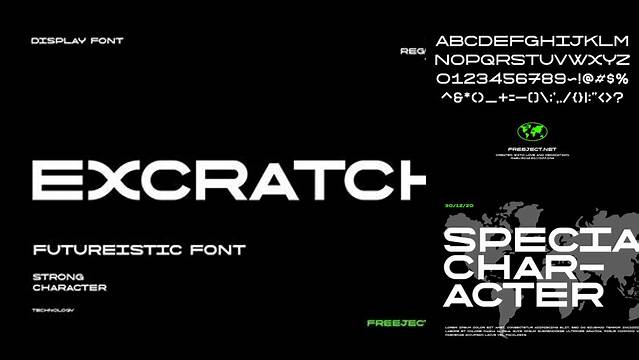
Alright, design enthusiasts! Let's dive headfirst into the world of typography with a focus on the awesome Excratch futuristic font. Seriously, guys, if you're looking to inject some serious sci-fi vibes or a sleek, modern feel into your projects, you've stumbled upon the right place. This article is all about the Excratch futuristic font free download, its features, how to use it, and where you can snag it without spending a dime. We'll explore everything from its unique characteristics to the best applications for this eye-catching typeface. So, buckle up, and let’s get started!
What Makes Excratch Font So Futuristic?
Excratch, at its core, is a font that embraces the future. It's not just a font; it's a statement. Designed with clean lines, sharp angles, and a distinct lack of traditional serifs, Excratch immediately evokes a sense of innovation and technological advancement. Think about it – what comes to mind when you picture the future? Sleek interfaces, advanced technology, and maybe even a spaceship or two, right? Well, Excratch encapsulates all of these elements in its design. The font's letterforms often feature geometric shapes, giving it a robotic or digital feel. This makes it perfect for projects that aim to represent anything related to technology, gaming, or the digital world. Furthermore, the consistent weight and spacing of the letters contribute to its readability and visual appeal, ensuring that the futuristic message is both clear and engaging. So, whether you’re crafting a website header, designing a game interface, or creating promotional materials for a tech startup, Excratch is definitely worth considering. The boldness and the clean cut of the font are one of the reasons why it fits into the criteria that are required in various projects. It is designed in a way that allows you to clearly display text. The Excratch futuristic font free download offers an unparalleled opportunity to get your hands on a high-quality font that is both visually striking and incredibly versatile. This allows you to explore the endless possibilities of the Excratch font and create designs that truly stand out from the crowd. Its striking appearance immediately grabs the attention of anyone who sees it, making it a perfect choice for headings, titles, and other elements where you want to make a bold statement. From a design perspective, the unique character of Excratch also allows for creative experimentation, offering endless possibilities for visual expression.
Key Features of the Excratch Font
Let’s break down what exactly makes Excratch so special. First and foremost, it’s the design. As mentioned before, the font’s clean lines and geometric shapes are the cornerstone of its futuristic aesthetic. Each letter is carefully crafted to convey a sense of precision and technological sophistication. The absence of serifs contributes to its modern and uncluttered look. The font also tends to have a high x-height, which means the lowercase letters are relatively tall. This enhances readability, especially in digital environments. This characteristic is crucial for ensuring that your text remains legible across various screen sizes and resolutions. Beyond the basic letterforms, Excratch often includes a range of special characters and glyphs. These can add extra flair and personality to your designs, allowing you to create truly unique visual compositions. Many versions of Excratch come with multiple weights and styles, from regular to bold, and sometimes even italic. This variety gives you greater flexibility when designing, letting you emphasize different parts of your text or create a layered visual hierarchy. The font's versatility makes it suitable for a wide range of applications, from website headers and app interfaces to print materials and branding projects. The Excratch futuristic font free download that you are looking for provides you with the complete package, with all of these amazing features readily available for you. The versatility of the Excratch font makes it an excellent choice for a variety of design projects, allowing you to create everything from striking headlines to detailed body text. Its unique aesthetic helps your design stand out, making it an excellent tool for designers and creatives. By utilizing the features of the Excratch font, you can make sure that your design not only looks visually appealing but also resonates with your target audience. This way, you can achieve your design goals.
Benefits of Using Excratch Font in Your Designs
Using Excratch in your designs offers a bunch of benefits. First off, there's the instant visual impact. The futuristic aesthetic of the font immediately grabs attention and communicates a sense of modernity and technological advancement. This is great for projects where you want to portray innovation or forward-thinking ideas. Secondly, Excratch is highly versatile. It works well in a variety of applications, from website headers and logos to posters and presentations. Its clean lines and sharp angles make it adaptable to different design styles. Thirdly, the font can enhance your brand identity. By using Excratch, you can create a distinct visual identity that sets you apart from the competition. This is particularly valuable in industries like tech, gaming, and design. Additionally, Excratch is generally easy to read. Despite its unique design, the font is often created with readability in mind, ensuring that your message is clear and accessible to your audience. This is essential for ensuring your text remains legible across various screen sizes and resolutions. Moreover, the Excratch futuristic font free download is easily accessible for designers of all backgrounds. The availability of this font makes it easy for anyone to enhance their design projects with its unique and eye-catching aesthetic. The clean lines and sharp angles make it adaptable to different design styles, allowing you to create a distinct visual identity that sets you apart from the competition. You can enhance your brand identity by using Excratch. This is particularly valuable in industries like tech, gaming, and design. The benefits of using Excratch don't end there; it can also boost your overall design appeal and make a significant visual impact.
Designing with Excratch: Best Practices and Tips
Designing with Excratch can be a blast, but it's also important to keep some best practices in mind to ensure your designs are effective and visually appealing. First, consider the context. Excratch is ideal for projects that want to convey a futuristic, tech-savvy, or modern feel. However, it might not be the right choice for projects that require a more traditional or playful aesthetic. Second, pay attention to readability. While Excratch is designed for clarity, it's crucial to maintain enough contrast between the text and the background. Avoid using it over complex backgrounds or with colors that blend into the letters. Experiment with different font weights and sizes to make sure your text is easily readable, especially on smaller screens. Third, choose the right font size. Consider the purpose of the text. Headlines can usually be larger and more visually striking, while body text needs to be sized for legibility. Fourth, use the font in moderation. While it’s tempting to use Excratch everywhere, remember that too much of a good thing can be overwhelming. It works best when used strategically, for headlines, logos, or accent text. Fifth, consider pairing Excratch with a complementary font. A sans-serif font or a simple, clean serif font can provide a good contrast and enhance readability for body text. The Excratch futuristic font free download opens up a world of possibilities. By applying these best practices, you can harness the unique potential of the Excratch font to craft visually captivating and highly effective designs. This approach will not only make your design more compelling but also improve its clarity and appeal.
Combining Excratch with Other Fonts for Enhanced Design
One of the cool things about Excratch is how well it can play with other fonts. To elevate your designs, consider pairing Excratch with complementary typefaces. This combination can provide visual interest and improve overall readability. The best pairings often involve contrasting styles. A good approach is to combine Excratch with a clean, neutral sans-serif font for body text. This ensures that the headlines or titles can stand out with the futuristic look while maintaining a clear and legible body. Another great option is to pair Excratch with a classic serif font. The contrast between the modern, angular Excratch and the traditional serifs can create a sophisticated look. You can experiment with different weights and sizes. For instance, you might use a bold Excratch font for headlines and a lighter weight of the secondary font for the body text. Mixing different font sizes helps to create a clear visual hierarchy. Avoid pairing Excratch with fonts that are too similar in style, as they can create visual clutter. To achieve a unified design, keep consistency in mind when mixing the fonts. By choosing fonts with similar characteristics, such as the same x-height or a common design style, you can ensure the design maintains balance. Also, ensure that the overall design concept matches the combined fonts. The Excratch futuristic font free download can be creatively and harmoniously paired with other fonts to craft a unique and engaging design. The combination allows you to create beautiful designs and achieve excellent results.
Excratch Font in Branding and Logo Design
Excratch is a fantastic choice for branding and logo design, especially for businesses in tech, gaming, or any industry that wants to project a modern and futuristic image. When using Excratch in logo design, the first step is to create a clean, uncluttered design. Because of its geometric shapes, Excratch works well in minimalist logos. It's crucial to ensure the logo is easy to recognize and remember. The simplicity of the font makes it perfect for this. Also, consider the message your brand wants to convey. Excratch communicates innovation, technology, and a forward-thinking approach. Make sure this aligns with your brand’s core values. In branding, consistency is key. Use the Excratch font across all your branding materials, from your logo to your website and marketing materials. This ensures a cohesive brand identity. The font’s strong visual impact makes it ideal for creating memorable logos. When using Excratch, choose colors that complement its futuristic aesthetic. Consider using bold, vibrant colors that reflect your brand’s personality. Moreover, make sure that the font is scalable, so the logo looks good at any size, from business cards to billboards. The Excratch futuristic font free download enables you to build a strong brand identity with a modern and futuristic look. The font’s visual impact helps you to create memorable logos. Furthermore, the versatility of the font makes it suitable for a variety of applications. The Excratch font enables you to establish a memorable and impactful brand identity. This allows you to stand out from the competition.
Using Excratch for Website Headers and Titles
Excratch is an excellent choice for website headers and titles, offering a bold, modern look that grabs the attention of your visitors. When using Excratch for headers, make sure the font size is appropriate. It should be large enough to be easily readable but not so large that it overwhelms the design. Balance the font size with other elements on the page. Because of its distinctive style, the font instantly creates a visual impact and communicates a futuristic or tech-savvy vibe. This can be perfect for websites in industries such as technology, gaming, or design. Be careful not to use Excratch for body text, as its unique design might compromise readability. Reserve the font for headings, subheadings, and calls to action. Also, pick a background that complements Excratch. Simple backgrounds, such as solid colors or subtle patterns, usually work best. Consider using the font with animations or transitions. This adds a dynamic feel and enhances the overall user experience. The Excratch futuristic font free download lets you make a statement with your website headers. Its clean lines and geometric shapes enhance the readability and visual appeal. It is a perfect choice for creating eye-catching headlines. The unique character of Excratch helps your website to stand out, making it an excellent tool for designers and creatives. Using Excratch for website headers and titles ensures your site looks modern and engaging.
Customizing the Excratch Font for Your Needs
While the standard Excratch font is already pretty awesome, you can also customize it to fit your specific needs. Many design software programs, like Adobe Photoshop or Illustrator, let you modify fonts. You can adjust the spacing between letters, the kerning, and even the size of each individual character. This is particularly useful if you want to create a unique logo or a specific typographic design. Also, you can play with different weights and styles. Some versions of Excratch come with multiple weights, from light to bold. This gives you more flexibility in your design, allowing you to emphasize different elements. Think about the context of your design. Are you creating a website, a poster, or something else? Customizing the font based on your intended use can make your design more effective. You could also combine the font with other design elements. Try incorporating the Excratch font with shapes, textures, or illustrations to create a unique look. Moreover, think about creating your own variations. If you're feeling creative, you can even try modifying the font's glyphs to add your own personal touch. The Excratch futuristic font free download opens the door to a world of customization possibilities. By using these methods, you can tailor the font to meet your exact needs, giving your designs a unique look and feel. Customization is the key to making the Excratch font really shine in your project. That is a great way to make it different from the rest.
Modifying Excratch Font with Design Software
Modifying Excratch with design software can open up a world of creative possibilities. Adobe Photoshop and Illustrator are excellent tools to start with. Both provide a wide range of features that allow you to adjust the font’s appearance. In these programs, you can modify the kerning, which is the space between individual letters. This is very useful for improving the visual appeal and readability of your text. Adjusting the tracking, or the overall spacing of the letters in a word or phrase, is another option. You can use this to create a tighter or looser look. Furthermore, you can change the font size, weight, and color to suit your design. Consider the visual impact of each adjustment. You can also create text outlines in programs like Illustrator, allowing you to manipulate each letter as a vector shape. This enables you to change the shape, add effects, and create unique designs. Additionally, experiment with effects such as shadows, gradients, and textures to give your text a more dynamic look. Always make sure your modifications are consistent with your design goals and brand identity. The Excratch futuristic font free download allows you to apply these techniques, making your design projects stand out from the crowd. This provides an unparalleled opportunity to customize and create designs that truly reflect your unique vision. The Excratch is easily modified.
Excratch Font in Modern Design Trends
Excratch aligns perfectly with many modern design trends. Its clean lines and futuristic aesthetic resonate with the minimalist movement, where simplicity and functionality are key. The font’s geometric shapes and modern feel also fit the modern tech aesthetic, which is popular in web design, app interfaces, and branding. In addition, Excratch is well-suited for designs that embrace a futuristic theme, which is becoming increasingly popular in areas such as gaming, science fiction, and innovation. Because of its clear, readable design, Excratch is also ideal for designs focused on user experience. Its adaptability across various mediums is a great advantage in today's varied digital landscape. Using Excratch can help you create designs that feel fresh, contemporary, and aligned with current design sensibilities. The Excratch futuristic font free download gives you a tool that can make your designs stand out and resonate with today's audiences. The best way to enhance your designs is by combining Excratch with other design trends. These will help you create compelling and visually stunning projects. The Excratch is an excellent tool for designers of any backgrounds.
How Excratch Fits into the Minimalist Design Aesthetic
Excratch fits seamlessly into the minimalist design aesthetic. Minimalist design focuses on simplicity, clean lines, and the elimination of unnecessary elements. The font’s geometric shapes and absence of serifs align with these principles, resulting in a clean, uncluttered look. In minimalist designs, every element has a purpose. Excratch enhances the design without overpowering it. The font’s modern and uncluttered design lends itself well to minimal backgrounds and layouts. Furthermore, Excratch’s clean lines ensure that the text is easy to read, even in designs with minimal visual distractions. This makes the font perfect for headings, titles, and calls to action. By using the font, you can make sure that your message is clear and effective. Also, the font’s versatility allows it to be used in different minimalist projects. Whether you're designing a website, a poster, or a logo, Excratch helps to maintain a sense of elegance and simplicity. The Excratch futuristic font free download provides a powerful tool to achieve a minimalist design look. Its geometric shapes blend perfectly with the minimalist design. By incorporating Excratch, you can enhance your design's impact, while staying true to minimalist principles.
Troubleshooting Common Issues with Excratch Font
Encountering issues with the Excratch font can be a bit of a hassle, but let's troubleshoot some common problems. First, make sure the font is installed correctly. Double-check that the font file (usually in .ttf or .otf format) is in your system's font folder. If the font isn’t showing up in your design software, try restarting the program. Next, ensure that your design software supports the font. Older software might not support newer fonts, so make sure your program is up to date. If the font looks distorted or broken, try downloading it again from a reputable source. Corrupted font files can cause these issues. Another problem is that the font may not display correctly on a website. Ensure that the font is properly embedded in your website's CSS. If the font has character display issues, you might be missing specific glyphs or special characters. Check the font’s character set. Also, verify the font’s license to make sure it’s compatible with your project. Some free fonts have usage restrictions. The Excratch futuristic font free download is usually reliable, but sometimes you might face these issues. If you are having problems, troubleshooting these common issues can help get your design project back on track. Make sure to check all the details and all the requirements to avoid any problems. The Excratch is easy to use.
Resolving Font Rendering Problems with Excratch
Font rendering problems with Excratch can sometimes pop up, but don’t worry, there are ways to fix them. A common issue is that the font may appear blurry or pixelated, particularly at certain sizes. To fix this, make sure your font size is set correctly. Using an appropriate size ensures the font renders clearly on different devices. Additionally, try using font smoothing options in your operating system or design software. This will help reduce the blurriness. Also, consider the file format of the font. Ensure you are using a format like TTF or OTF, which are well-supported and usually render well. Sometimes, the problem is with the design software. Update to the latest version of your design software. Software updates often include fixes for font rendering issues. Furthermore, make sure the font is embedded correctly if you are using it on a website. Improper embedding can cause rendering issues. When designing for different devices, test how the font renders across different screen sizes and resolutions. This will help you identify and fix any rendering problems early. The Excratch futuristic font free download typically provides well-rendered fonts. By troubleshooting these common issues, you can ensure that your text looks clean and professional. This way, you can take full advantage of this design choice. The Excratch font will help you to avoid these issues.
Excratch Font and Web Design: Best Practices
Using Excratch in web design demands a careful approach to ensure the font complements the overall user experience. Because Excratch has a modern, futuristic aesthetic, it’s best used for headlines, titles, and calls to action. Avoid using it for body text, as its unique design might impact readability. Ensure the font size is appropriate. It should be large enough for easy reading but should not overwhelm other design elements. You also need to consider the overall design layout of your website. Ensure the font complements your site's theme and content. When embedding the font into your website, use CSS to correctly apply the font to the relevant elements. This ensures the font appears as intended. Also, ensure you optimize the font for web use. This might include using a web font format and optimizing the font files to reduce the load time of your website. The Excratch futuristic font free download helps you build a site that is visually striking and user-friendly. Test the font on various devices to ensure it renders correctly across different screen sizes and resolutions. Consider how the font will look in different browsers. Some browsers might render fonts differently. Also, choose a background that complements the font. The right background color can improve the text's readability. Following these best practices ensures that your website looks modern and engaging. The Excratch will enhance your web design.
Optimizing Excratch Font for Website Performance
Optimizing the Excratch font for website performance is key to providing a good user experience. One of the first things to do is to select the correct font format. Web fonts are typically available in .woff and .woff2 formats. .Woff2 is generally preferred due to its better compression and faster loading times. Always use a web font to embed it in your website's CSS. Next, minimize the file size of the font files. Use font subsetting to reduce the number of glyphs in the font file. This removes unused characters, making the file size smaller. Then, optimize font loading. Using techniques like preload or preconnect can help the browser load the font faster. Load the font asynchronously so it doesn’t block the rendering of your web page. Also, implement caching. Caching stores the font files on the user’s device so they do not have to be downloaded every time the page loads. Additionally, test your website on various devices and browsers. This will help you identify any rendering issues. Make sure your website is responsive, so the font looks good on all screen sizes. The Excratch futuristic font free download provides you with tools for web design. By following these practices, you can enhance your website’s performance. This is important for a smooth user experience. The Excratch will improve the website performance.